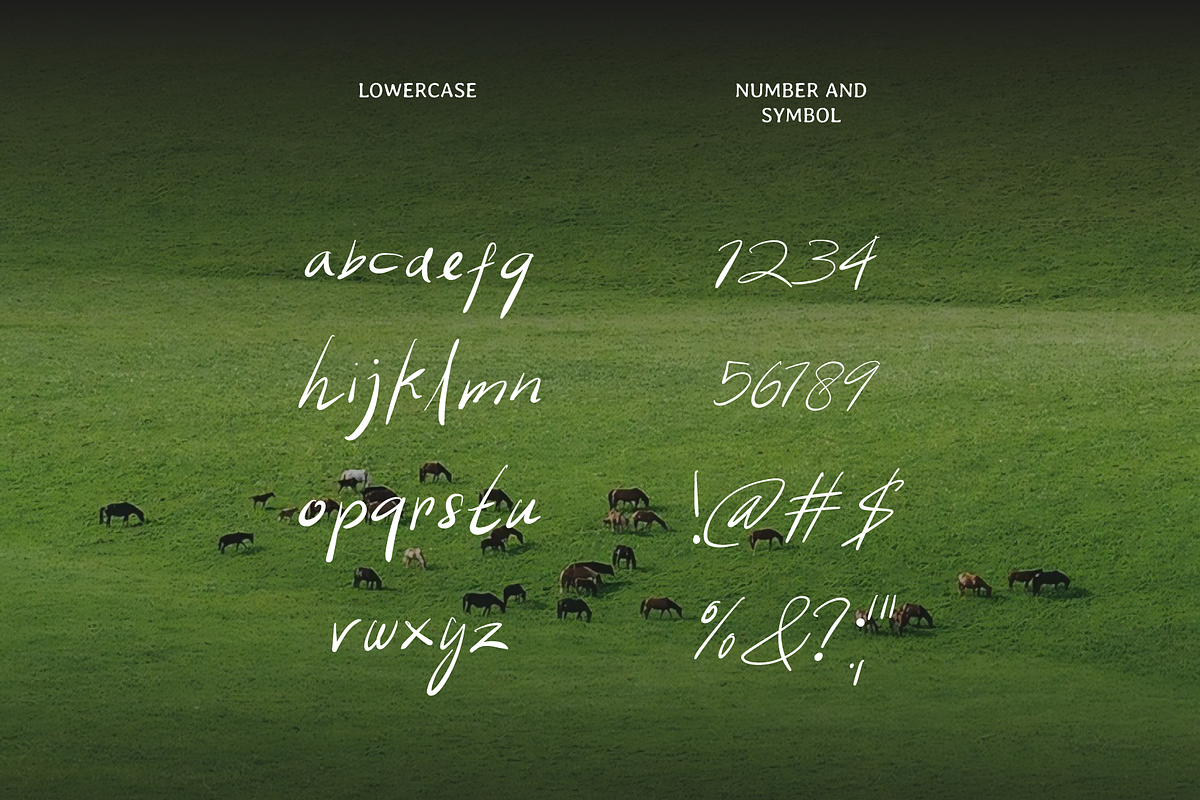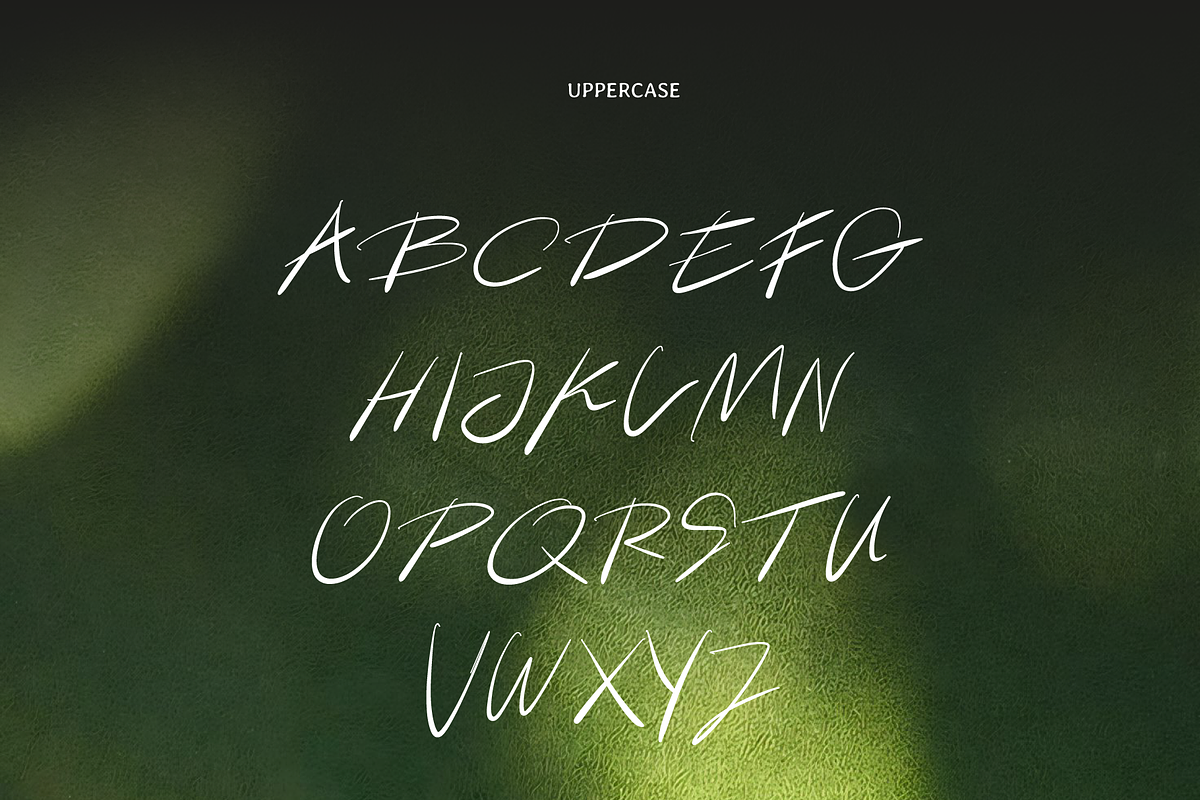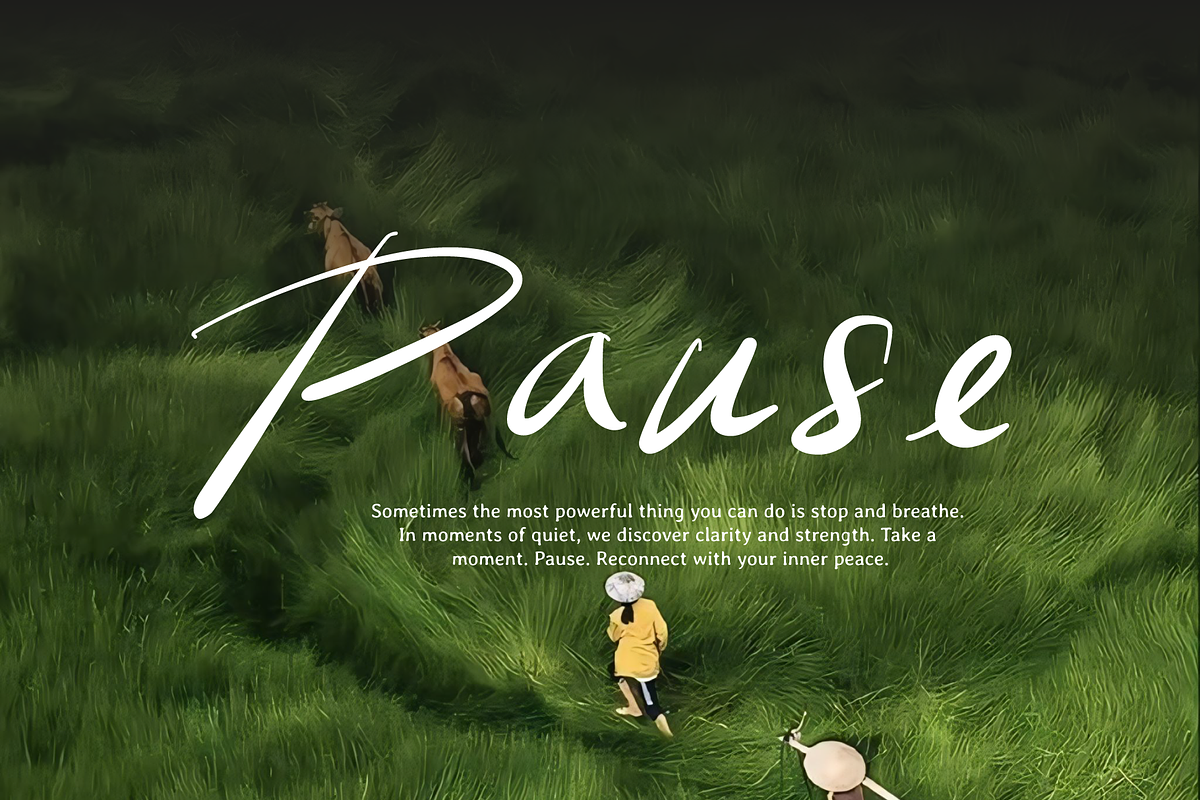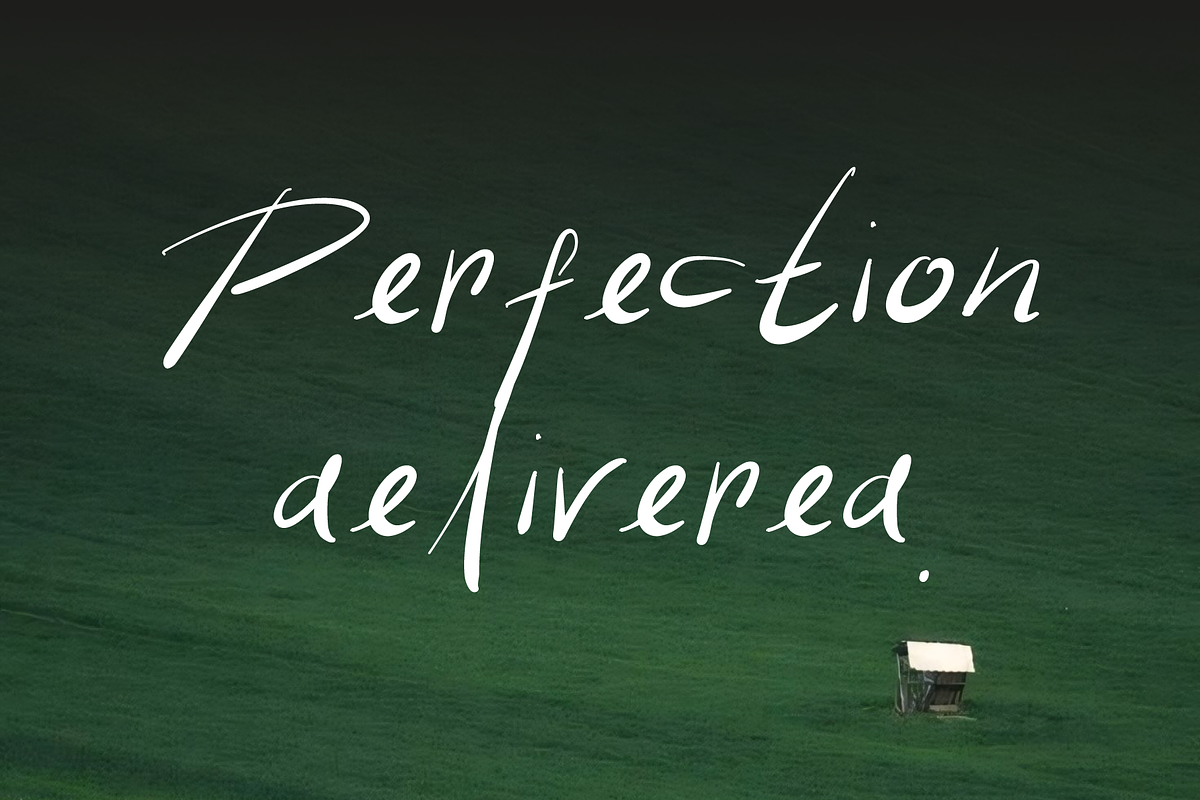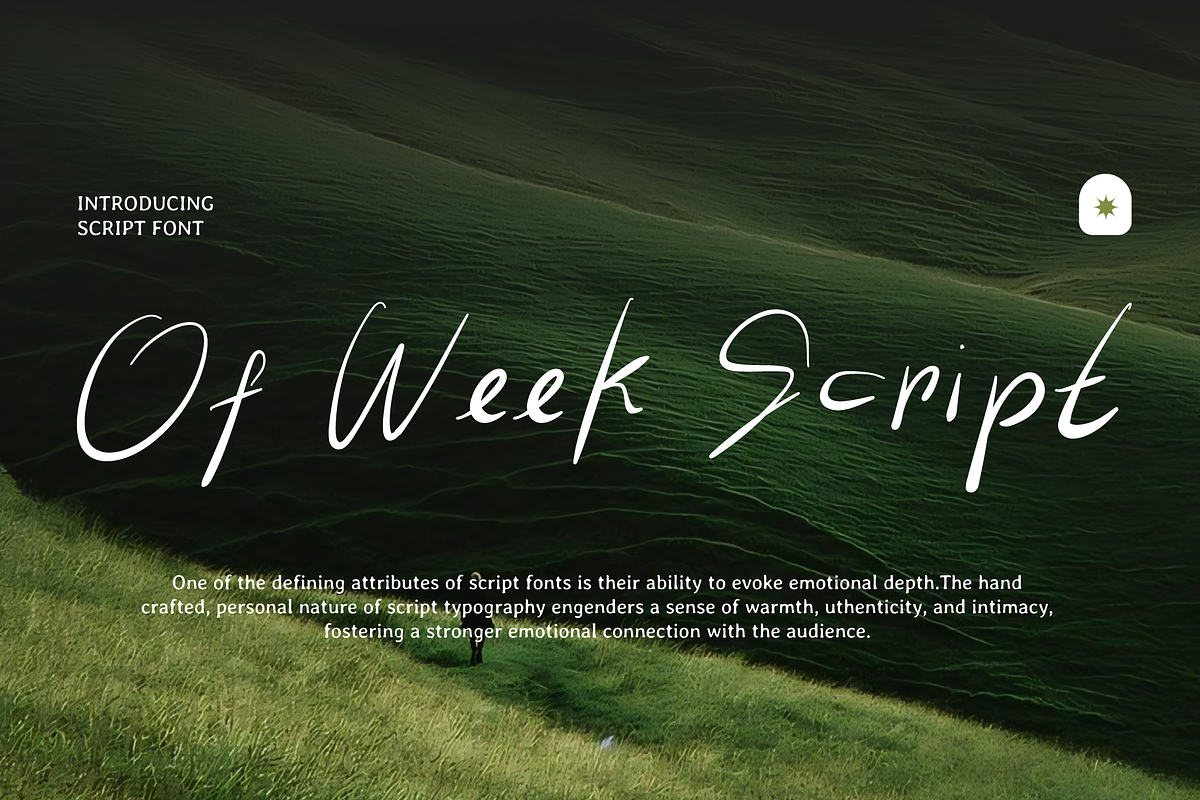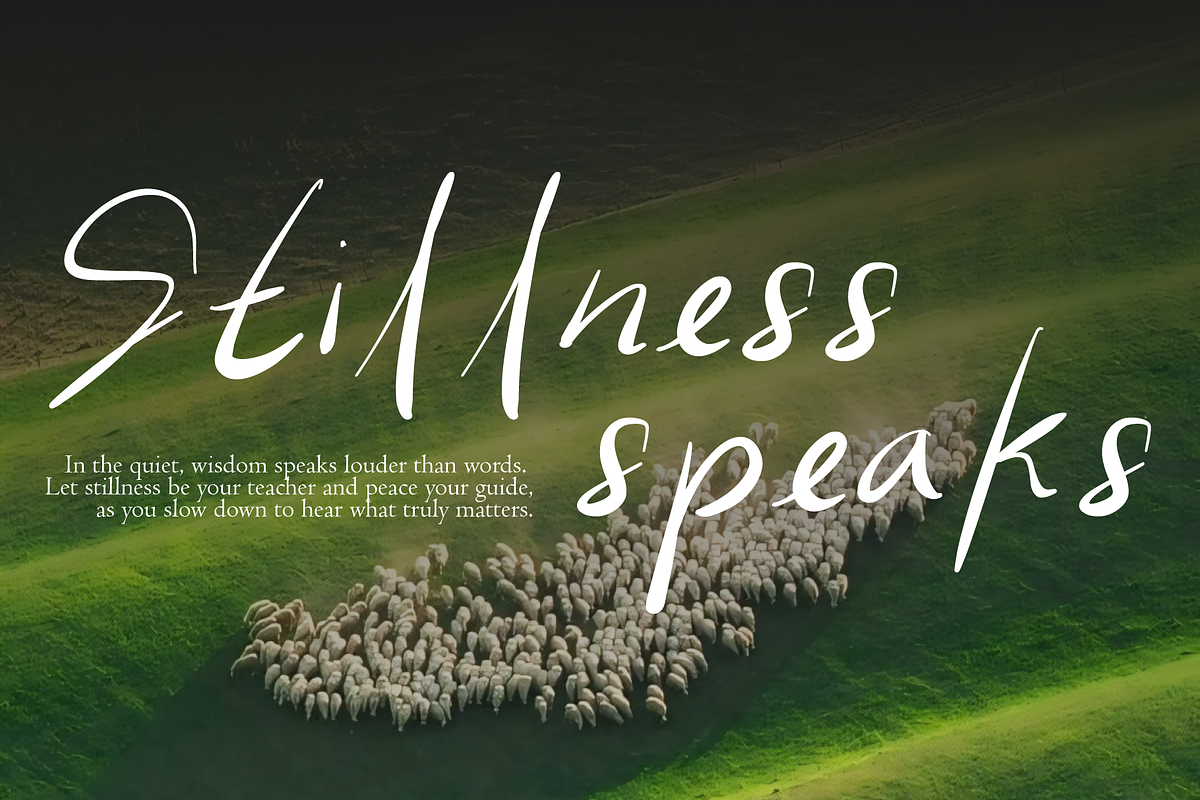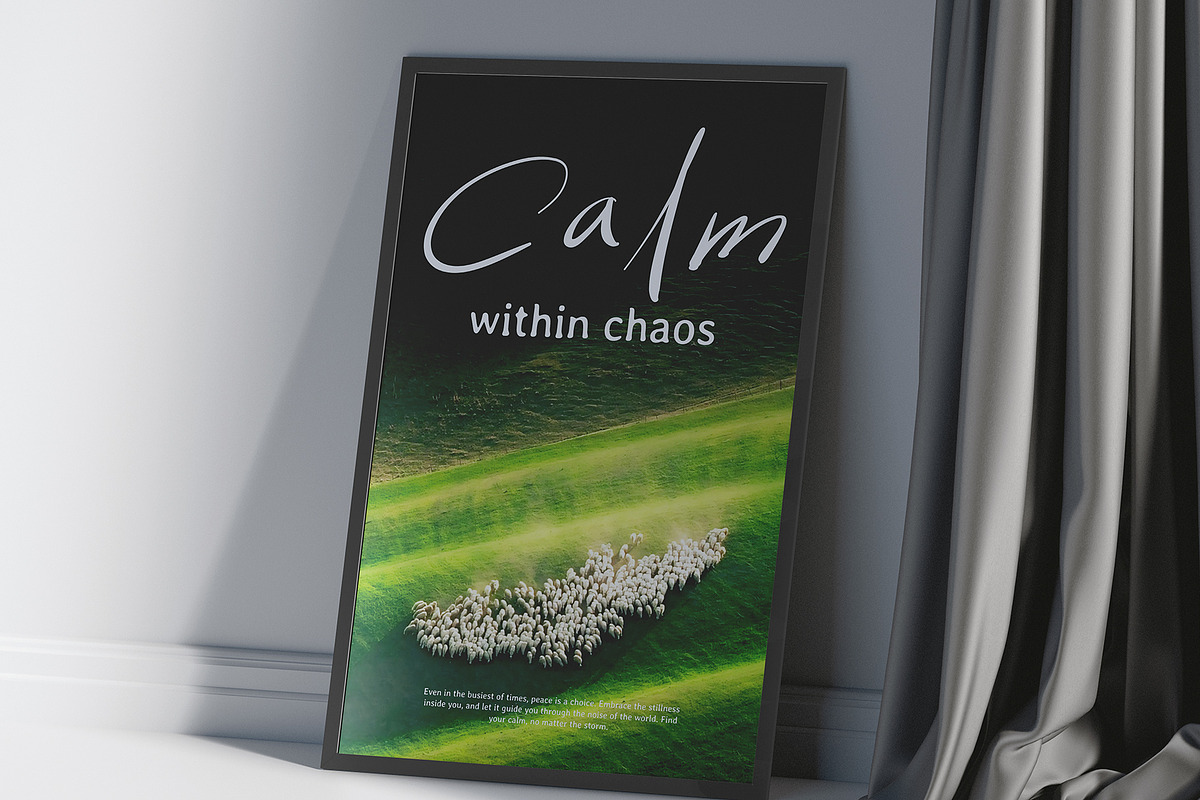
Of Week Script
Of Week Script Handlettering font with a free but relaxed style, italic accent of each letter with a difference in uppercase and lowercase gestures, recommended for wedding invitations, book titles, poster titles, or other supporting media